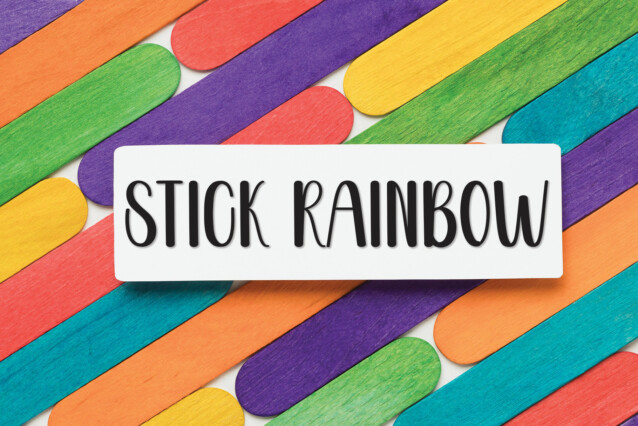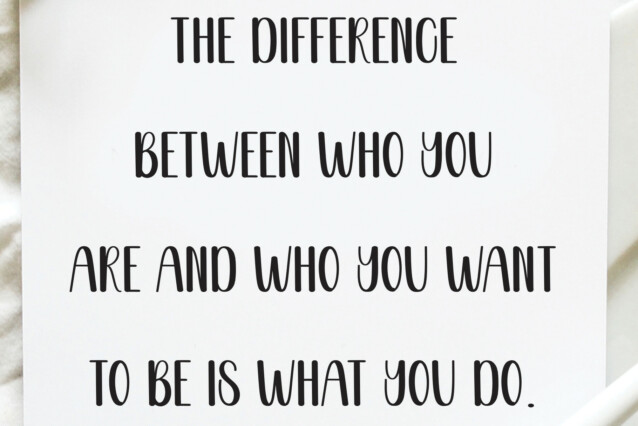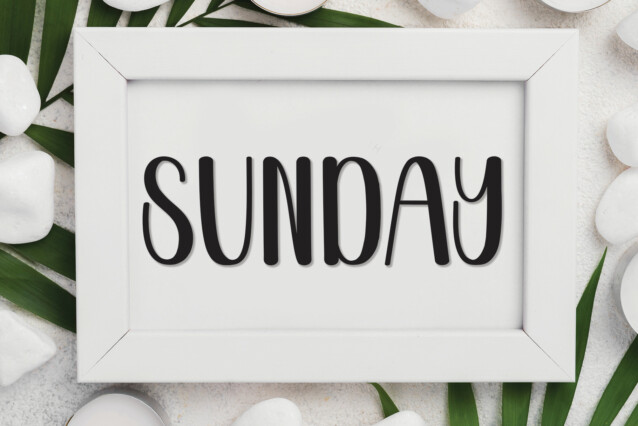
Simple Sample Display Font
Simple Sample Display Font is a casual and neat handwritten display font. Whether you’re using it for crafts, digital design, presentations, or making greeting cards, this font has the potential to become your favorite go-to font, no matter the occasion